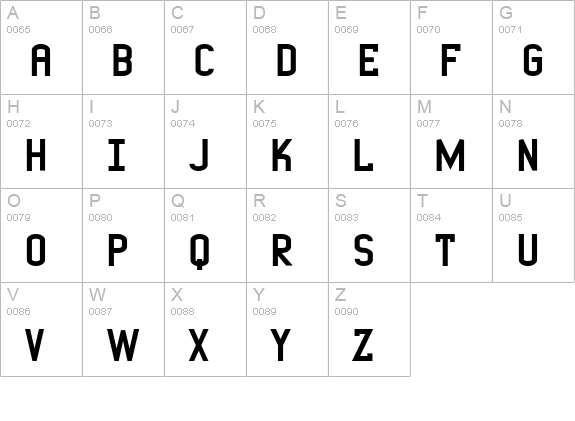
PeterPierreXBold Font Details
Introducing PeterPierreXBold, a bold and captivating font that is sure to make a statement with its powerful presence. This font exudes confidence and strength, making it perfect for headlines, logos, and any design that requires a bold and impactful touch. With its clean and modern design, PeterPierreXBold stands out from the crowd, instantly grabbing attention and leaving a lasting impression. Its bold letterforms are carefully crafted to create a harmonious balance between elegance and impact, making it versatile for various design projects. But that's not all – the best part is that PeterPierreXBold is free! Yes, you read that right. This incredible font is freely available to download at FontsMarket.com. So whether you're a professional designer looking to add a striking element to your work or simply someone who enjoys experimenting with different fonts, PeterPierreXBold is the perfect choice. Don't miss out on the opportunity to enhance your designs with this stunning font. Download PeterPierreXBold today from FontsMarket.com and unlock a world of possibilities. Let your creativity soar and make a bold statement with this captivating and freely available font.